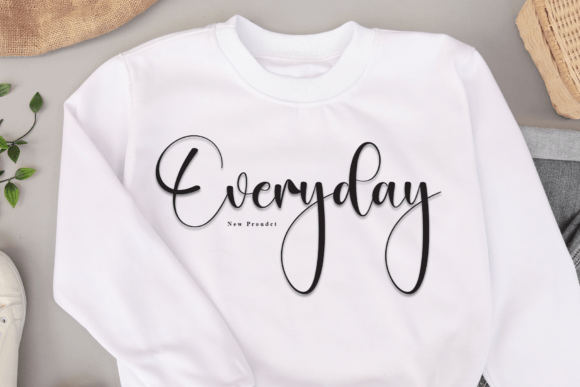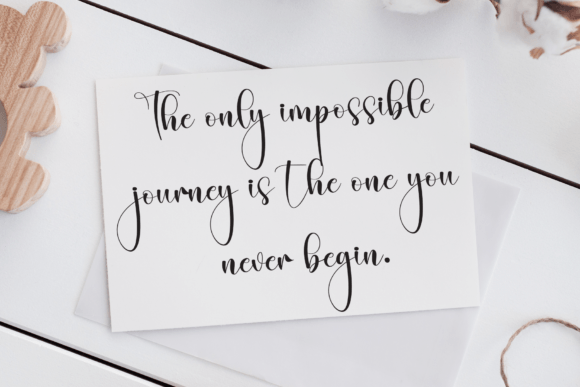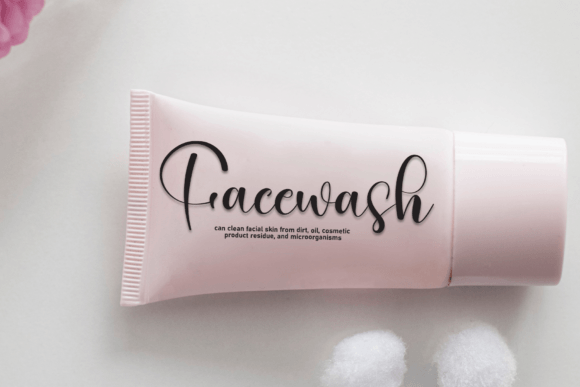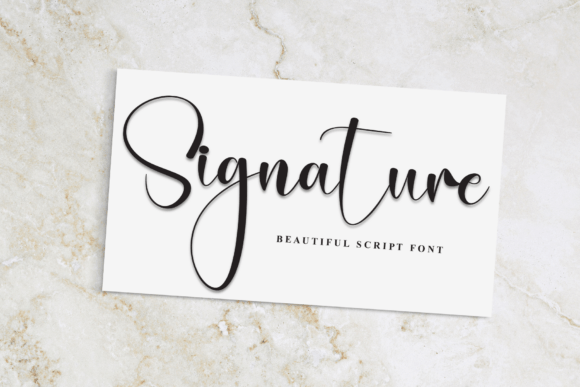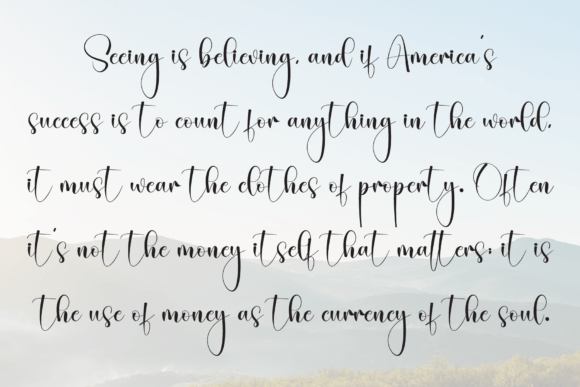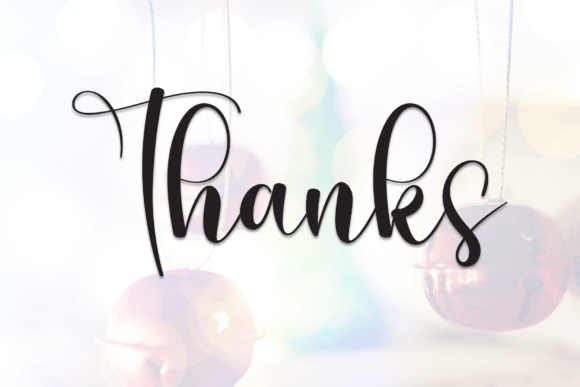
When Words Come Alive: The Magic of Jingle Font
Have you ever found yourself scribbling down ideas in a notebook, only to realize that the words on the page have taken on a life of their own? That’s the magic of Jingle Font – a stylish and elegant script font that brings a touch of handwritten charm to any design.
Jingle Font is the perfect addition to any project that needs a little extra flair. Whether you’re crafting a wedding invitation, designing a logo, or simply creating a heartfelt thank you card, this beautiful font is sure to add a personal touch. For designers, Jingle Font is a valuable tool that can elevate even the simplest of designs into something truly special.
Jingle Font Key Features
- Font Family: Jingle Font is a unique display font designed to evoke a sense of festive cheer, making it perfect for holiday-themed designs.
- Unique Characteristics: Jingle Font features a distinctive, hand-drawn design with intricate details and ornaments, making it stand out from other fonts.
- Characters and Glyphs: Jingle Font includes a wide range of characters, including uppercase and lowercase letters, numbers, punctuation marks, and special symbols, as well as ornaments and decorations.
Jingle Font Review
Overall, I think “Jingle Font” is a fun and playful font that could work well in the right context. Here are some things I like about it:
- ✨ The font has a nice, festive feel to it, making it perfect for holiday-themed designs or projects.
- ✨ The characters are well-designed and visually appealing, with a good balance of thick and thin lines.
- ✨ The font is highly legible, even at smaller sizes, which is a plus for designers who need to use it in tight spaces.
- ⚠️ The font is quite ornate, which may make it difficult to use in projects where a more straightforward or minimalist design is preferred.
- ⚠️ The font may not be suitable for body text or large blocks of text, as it can be overwhelming to read.
- ⚠️ The font is not highly customizable, which may limit its use in projects where specific design elements need to be tweaked.
Overall, I think “Jingle Font” is a fun and creative option for designers who want to add some holiday cheer to their projects. However, it’s not a one-size-fits-all solution, and designers should be aware of its limitations before using it.
Tips for Getting the Most Out of Jingle Font
For best results, use Jingle Font for titles and headings. Experiment with different font sizes and styles to create a visually appealing design.
Jingle Font is ideal for:
- Christmas and holiday-themed designs.
- Music and arts-related projects.